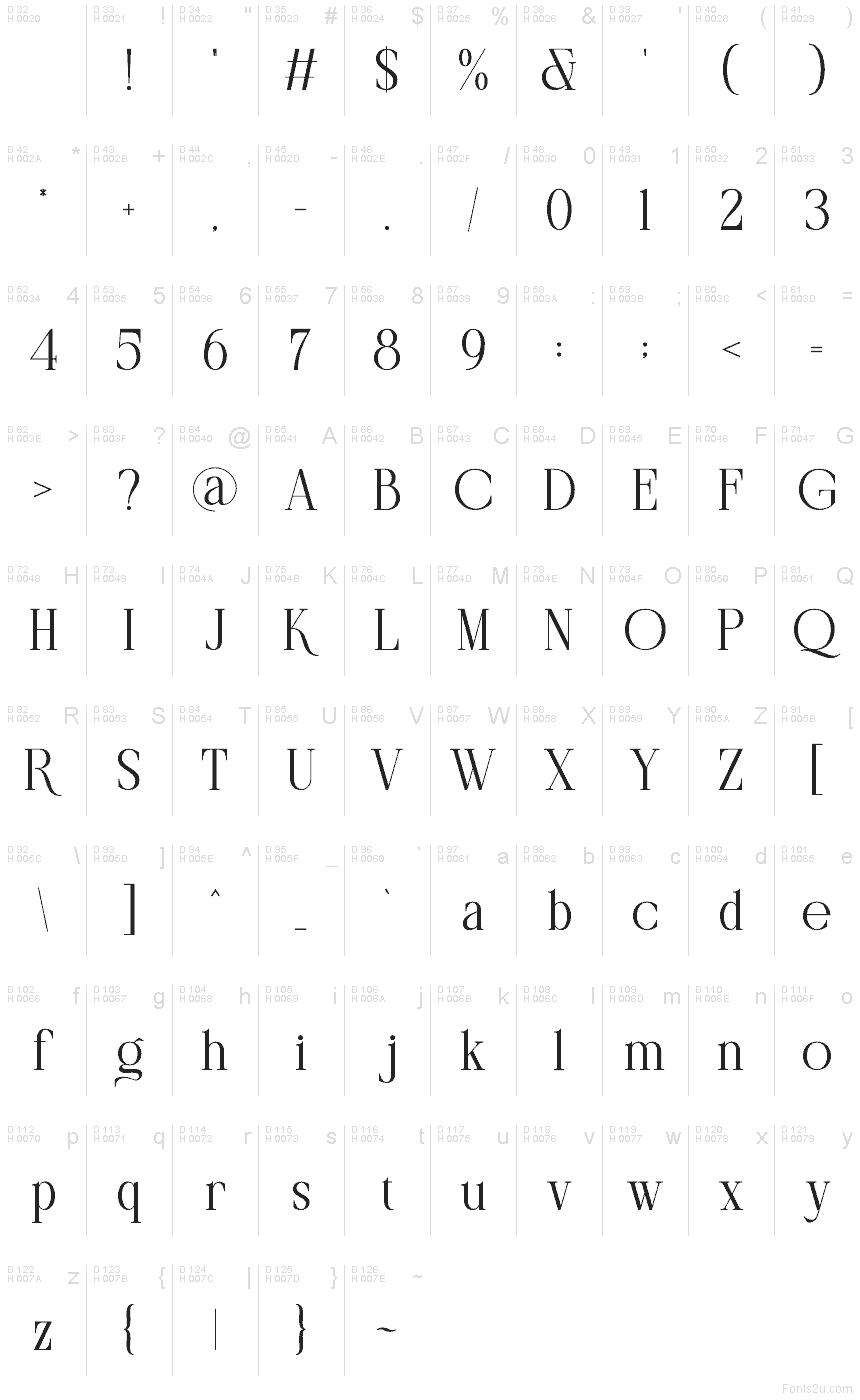
Relindo
Relindo font by Ermedia Studio is a free serif display font. It stands out with a sweeping, ribbon-like stroke that drops from the R and knife-edge serifs that snap into razor-thin hairlines. The rhythm feels couture: tall, elegant forms with crisp verticals and controlled curves that look inked with a fine nib. It brings drama without noise, giving headlines a luxurious, editorial punch.
Using Relindo, you’ll get striking logos, fashion or beauty headlines, packaging, wedding titles, magazine covers, and statement posters that read rich at a glance. This free font loves generous letterspacing at large sizes, where those slender hairlines stay luminous. Pair it with a neutral grotesk sans for body text to let Relindo carry the spotlight.